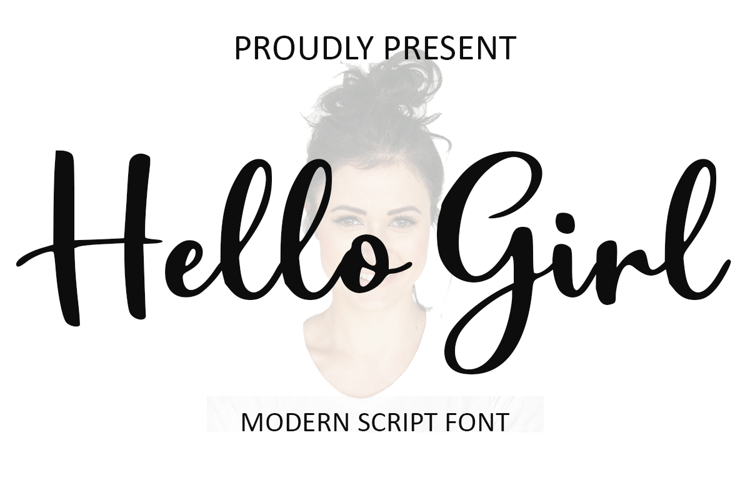
Hello Girl
Hello Girl is a modern script font that beautifully blends the elegance of handwriting with a fresh, contemporary touch. Designed with naturally flowing lines and a confident stroke, this font delivers a cheerful, yet sophisticated vibe to any creative project. Its organic character provides an authentic handmade feel, making it perfect for brands that want to appear approachable and stylish. Despite its script style, “Hello Girl” maintains high legibility with balanced proportions, ensuring your message is clear whether used in large headlines or smaller accents.
This versatile typeface is an ideal choice for branding and logos in the fashion and beauty industries, wedding invitations that require a romantic flair, and social media content like aesthetic Instagram quotes. It also works wonderfully for product packaging, apparel design, and book covers. With its chic and clean characteristics, Hello Girl offers seamless connections between letters, providing a professional finish to your work. Elevate your design’s artistic value and leave a lasting impression with the timeless charm of Hello Girl – Modern Script Font.